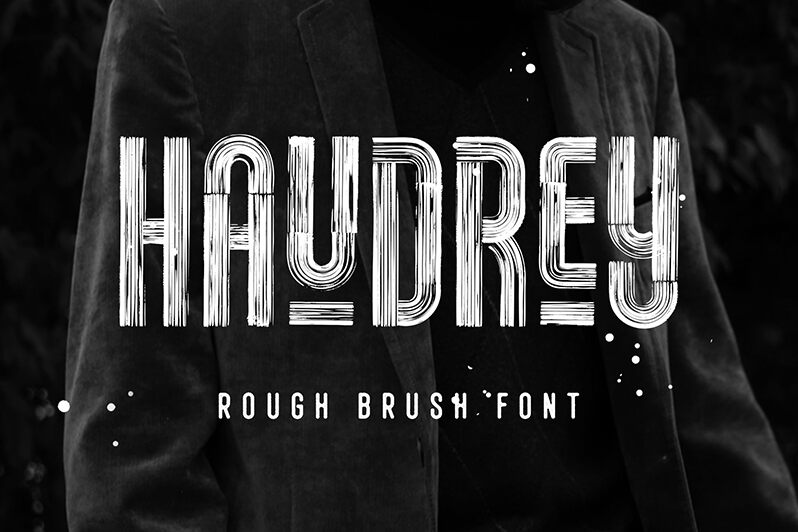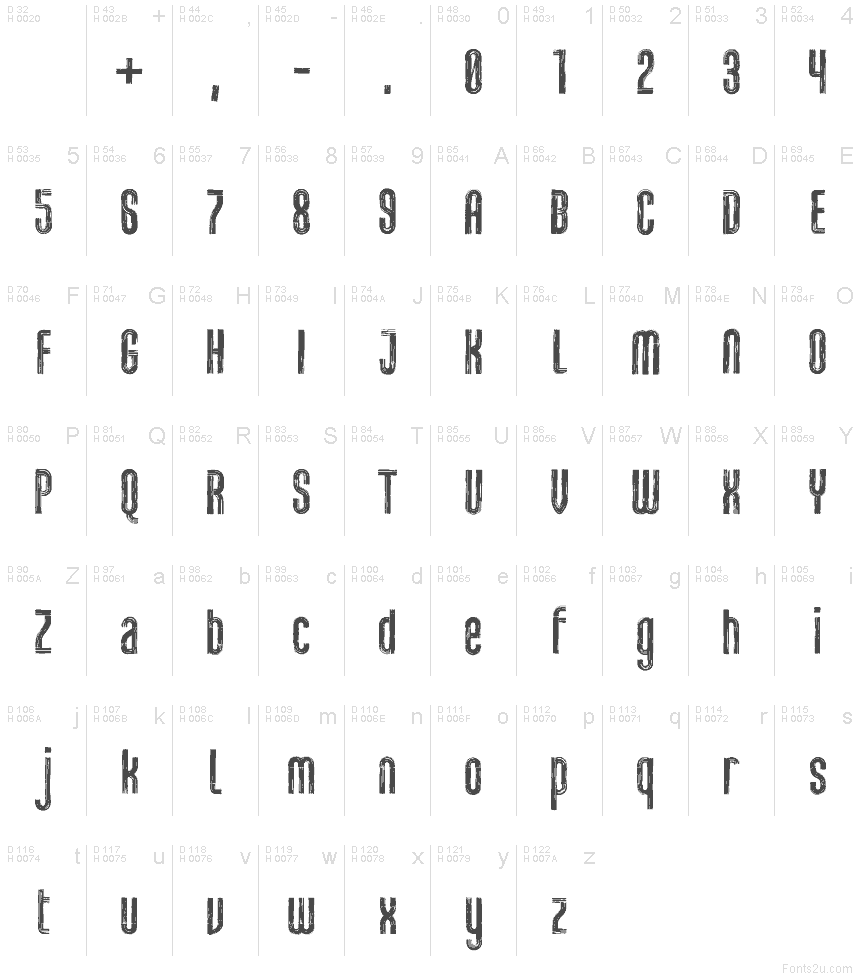
Haudrey Regular
Haudrey font by Arterfak Project is a free eroded display typeface. Its tall, rounded forms are built from stacked parallel strokes that look scratched and weathered, like neon tubing after a few rainy seasons. The stripes add a pulsing rhythm while the grunge softens the shine, giving headlines a tactile, streetworn energy that reads loud without feeling stiff.
Using Haudrey, you get instant texture that works beautifully for gig posters, indie album covers, urban packaging, skate or streetwear logos, thriller titles, and night market signage. This free font likes big sizes and a touch of extra tracking to let the stripes breathe; pair it with a plain, modern sans for captions to keep the focus on the gritty glow.